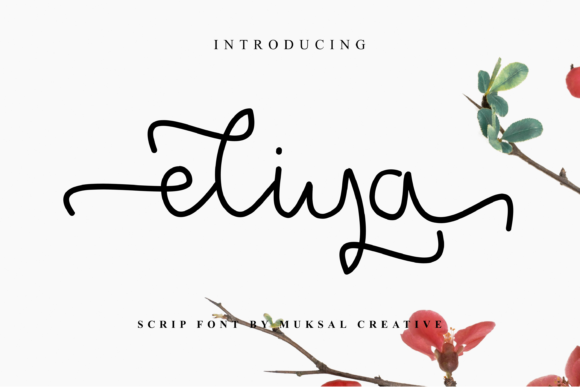
Immerse yourself in the world of Eliya Font, a magnificent handwritten script font that exudes charm and sophistication. This exquisite creation by Muksal Creative is a true masterpiece, meticulously crafted to captivate your senses and bring your creative visions to life.
Eliya Font is more than just a font; it's an artistic expression that dances across the page with its graceful curves and playful strokes. Its unique personality shines through in every letter, adding a touch of whimsy and elegance to your designs. Whether you're a seasoned designer or just starting your creative journey, Eliya Font is the perfect companion to elevate your projects and make a lasting impression.
Step into a world of endless possibilities with Eliya Font. Its versatility knows no bounds, allowing you to transform your ideas into stunning works of art. From enchanting invitations and heartfelt greeting cards to eye-catching social media posts and captivating logos, Eliya Font seamlessly adapts to your creative vision. Its charming style adds a personal touch to your designs, making them stand out from the crowd.
Unleash your creativity and let Eliya Font guide you on an extraordinary journey of self-expression. Experience the joy of crafting designs that resonate with your audience and leave a lasting impact. With Eliya Font, your words will come alive, captivating hearts and igniting imaginations.